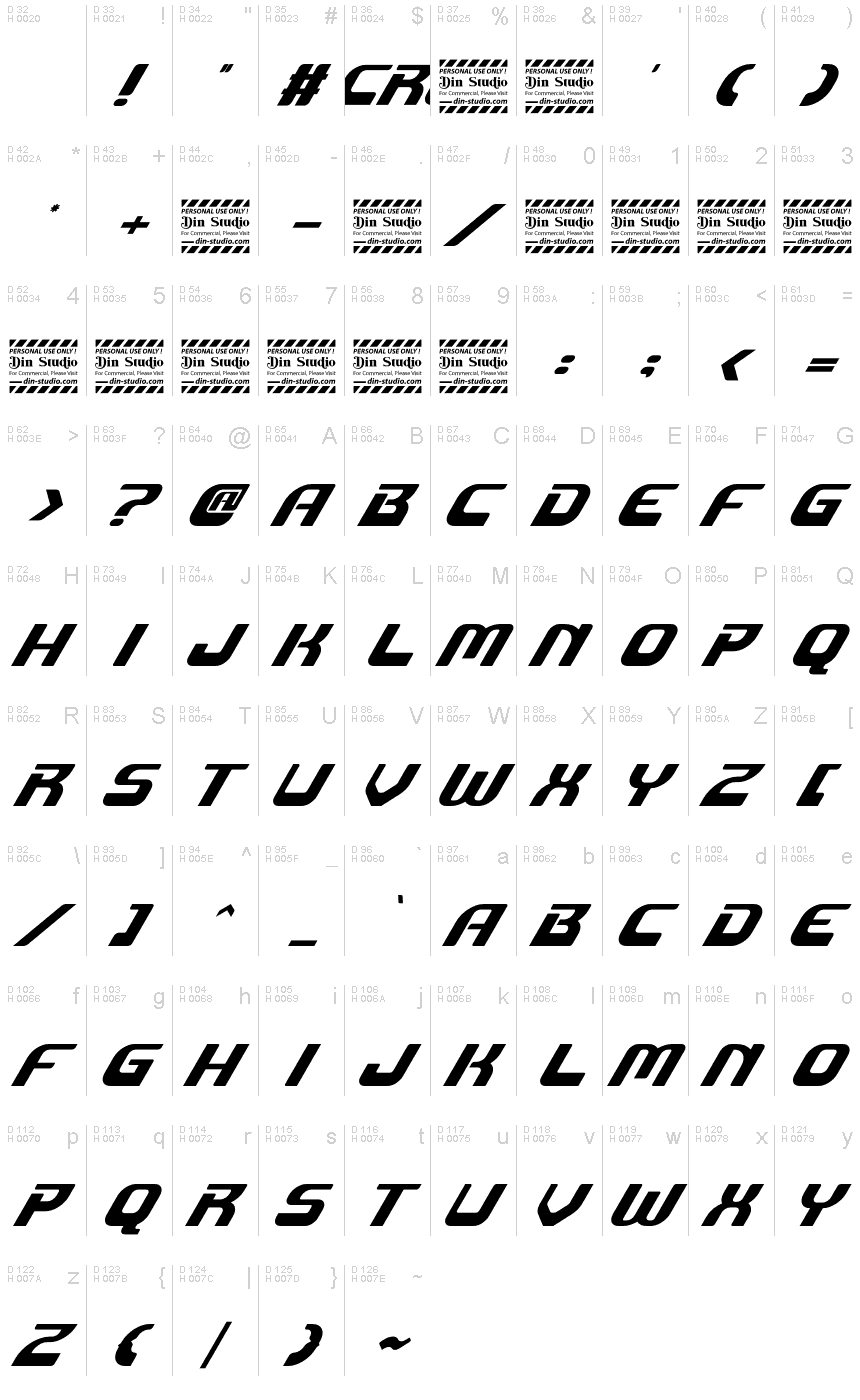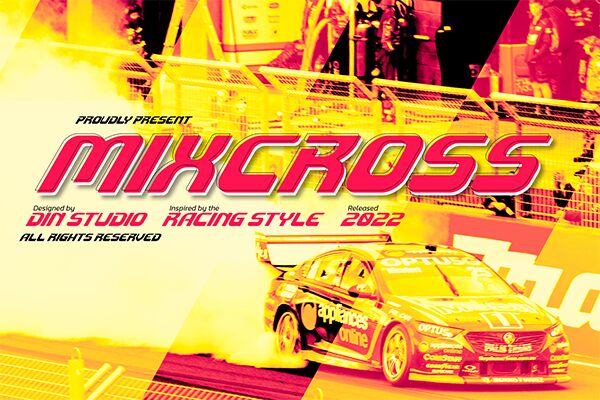
Mixcross, a bold innovation from Din Studio, merges the edginess of techno with the commanding presence of display typefaces. This font's powerful weight and sharp geometric construction make it an instant attention-grabber. Its aesthetic appeal lies in its futuristic vibe and clean lines, which exude a contemporary style that is both sleek and assertive.
With its strong character, Mixcross is more than just legible – it's a statement piece for any design. Ideal for branding projects, poster designs, or any digital platform seeking to make an impact, this font stands out for its versatility within modern creative contexts.
The techno-style nuances present in Mixcross offer a nod to digital culture and electronic aesthetics, making it particularly suitable for industries related to gaming, tech startups, or innovative marketing campaigns. With Mixcross as your typographical ally, your message won't just be seen; it will resonate with dynamic clarity.